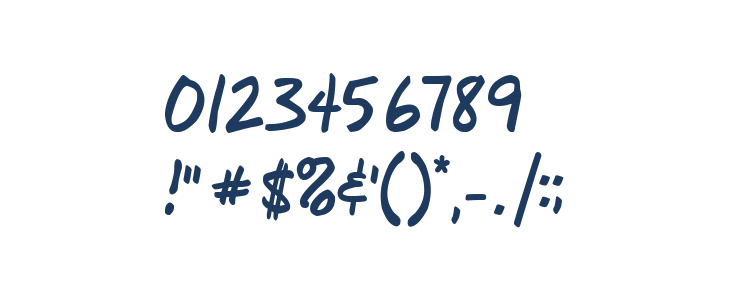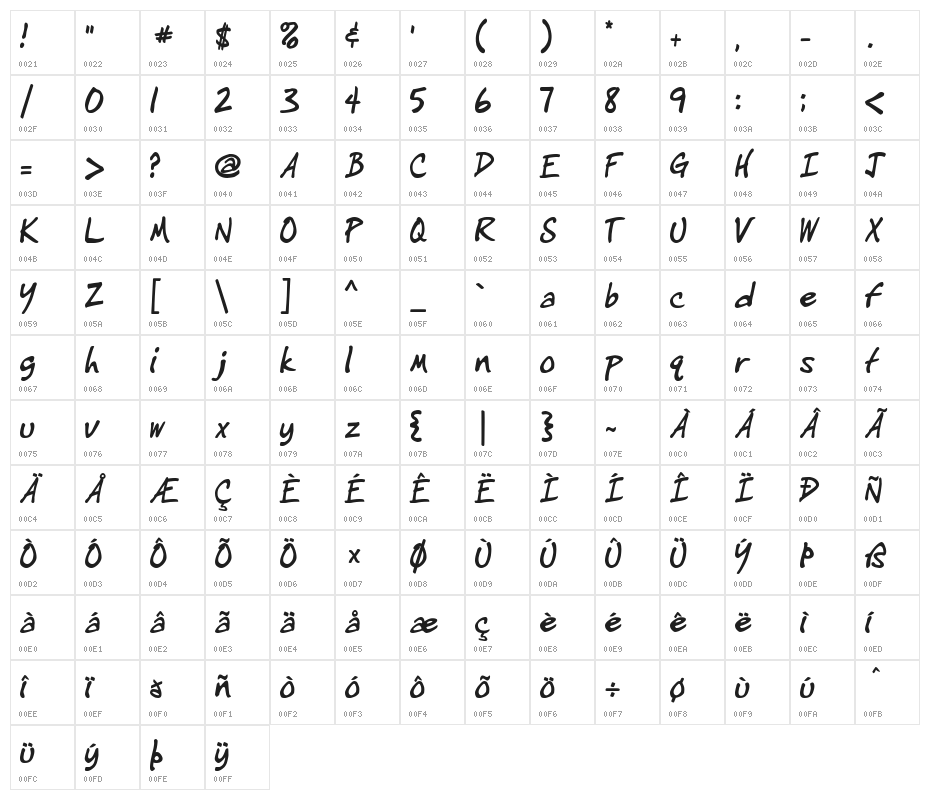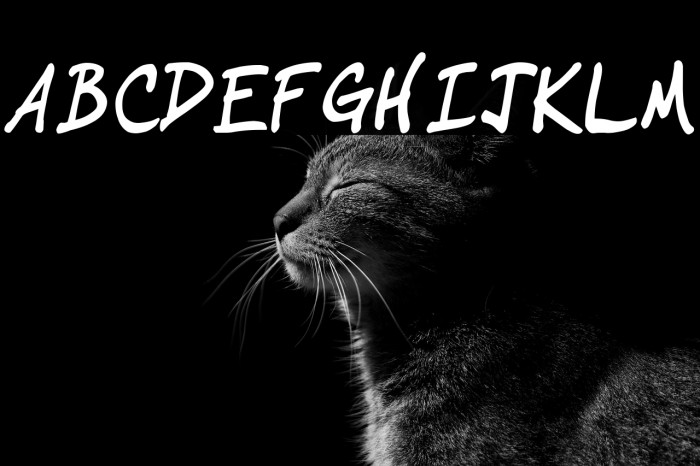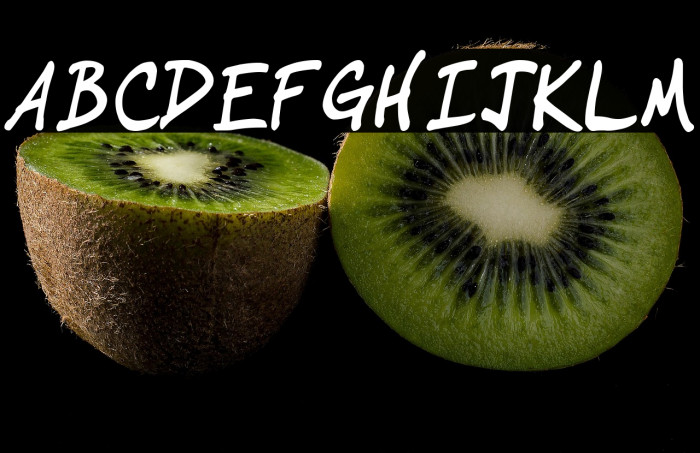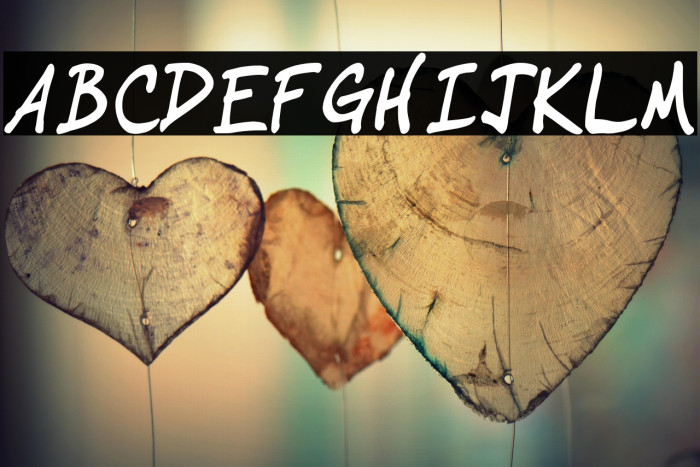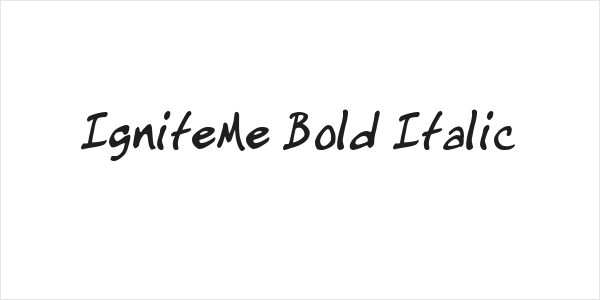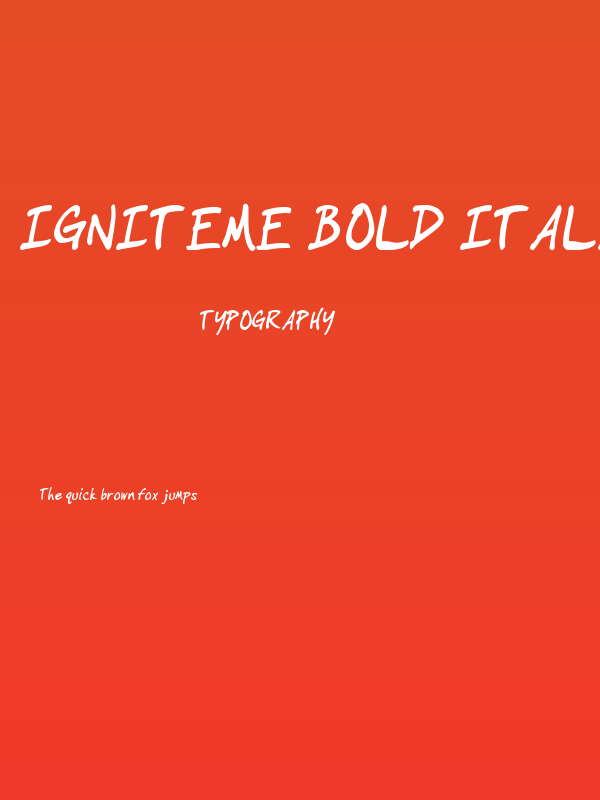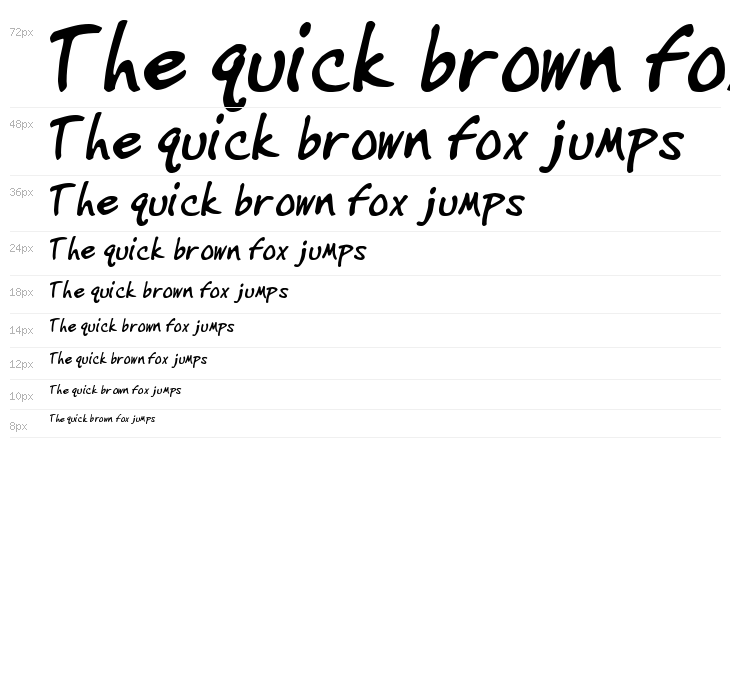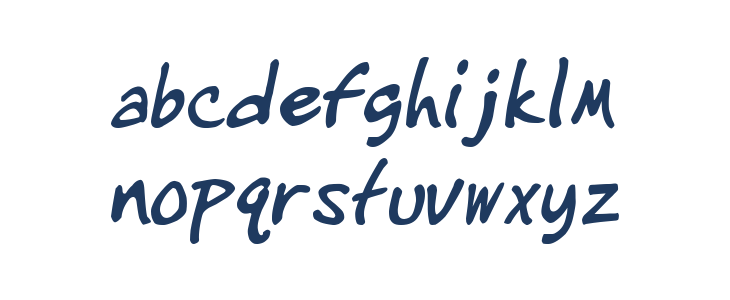
IgniteMe Bold Italic Font
IgniteMe Bold Italic Description
This font features a bold and italicized style with a dynamic, handwritten appearance. The letters are slightly slanted, giving a sense of movement and energy. The strokes are thick and consistent, providing a strong visual impact. The uppercase and lowercase letters maintain a cohesive look, while the numbers and special characters are designed to match the overall aesthetic. The font's playful and informal style makes it suitable for creative projects that require a personal touch.
| Proposed Projects | Ideal for posters, invitations, branding, and any project that benefits from a lively and personal touch. |